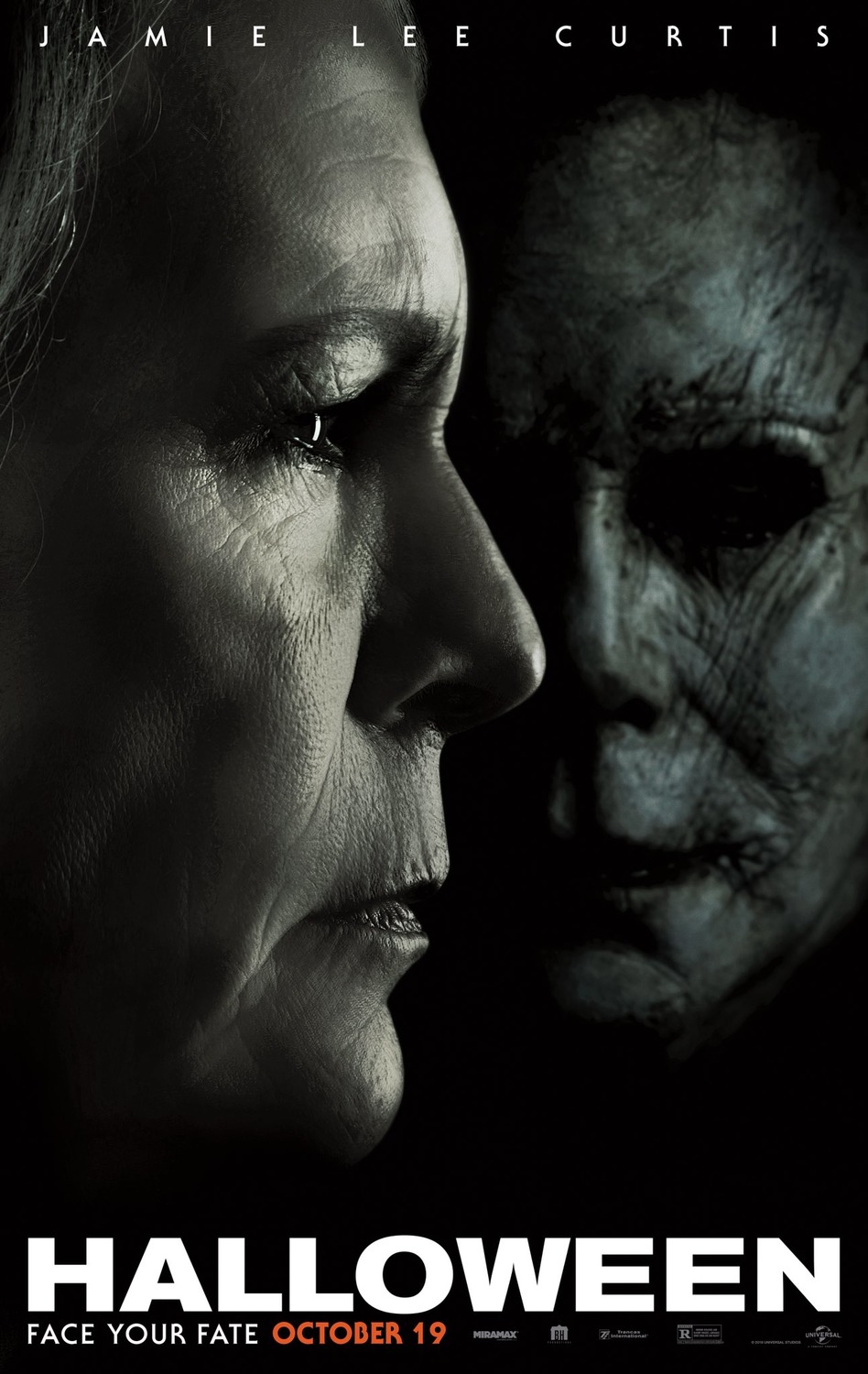
Halloween (2018 film) Font
Fonts in UseHalloween is a slasher film and a direct sequel to the original 1978 Halloween film, ignoring all other sequels. It follows the iconic serial killer Michael Myers as he returns to Haddonfield, Illinois, to terrorize Laurie Strode and her family on Halloween night once again.
The film title on the poster is presented in a wide sans-serif font reminiscent of Akzidenz Grotesk Bold Extended, a typeface family originally created by the Berthold Type Foundry in Berlin. Additionally, other text on the poster is set in ITC Serif Gothic, which is also the primary typeface used in the original 1978 film.